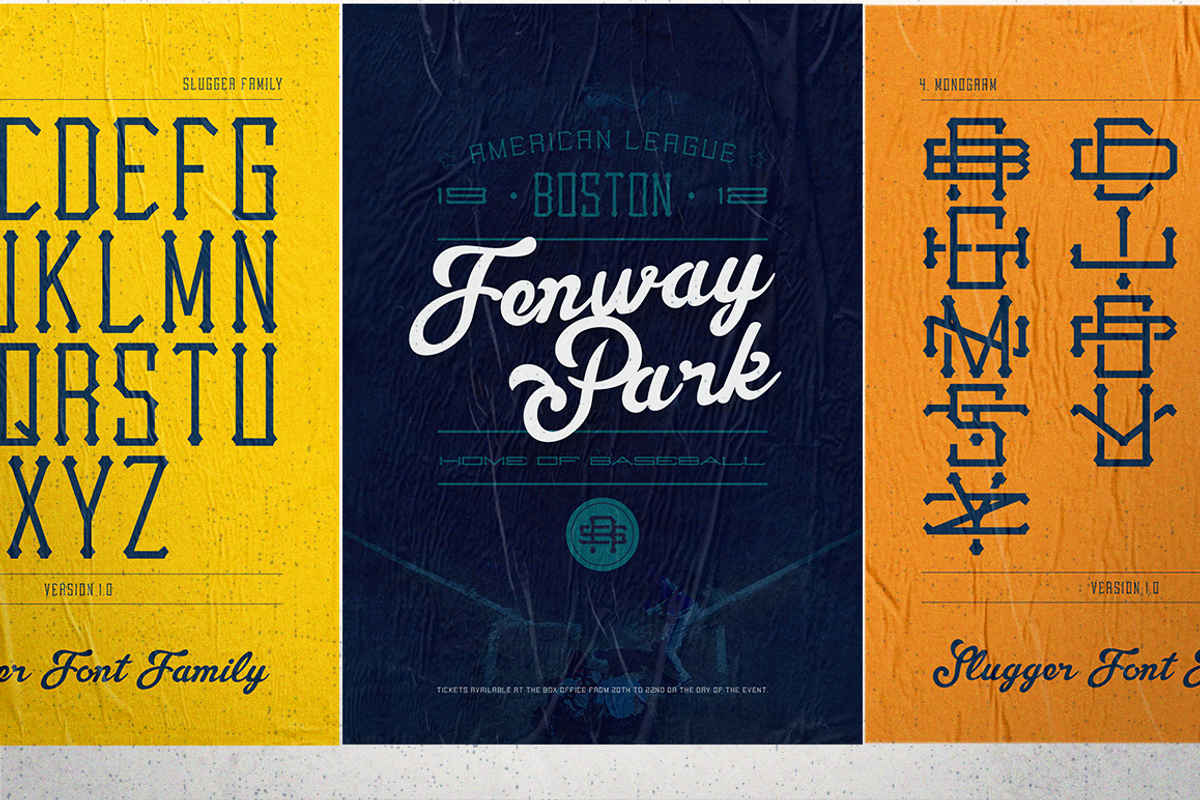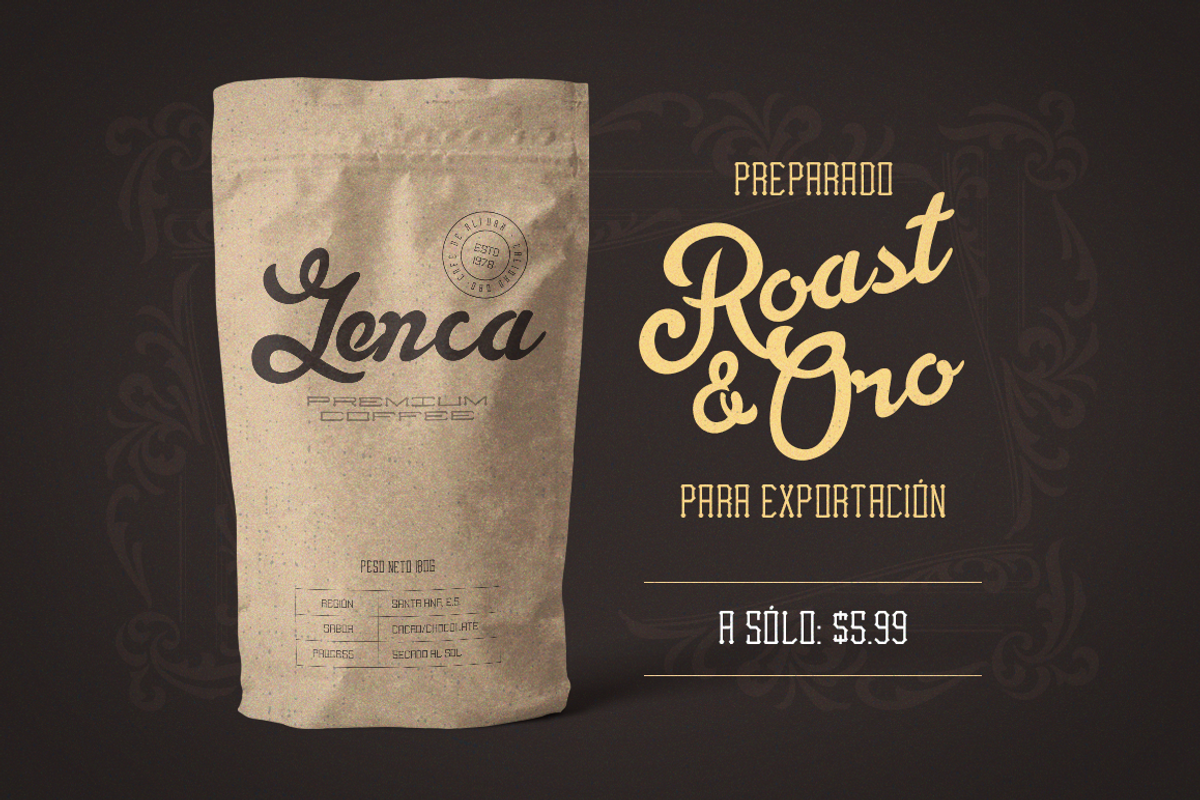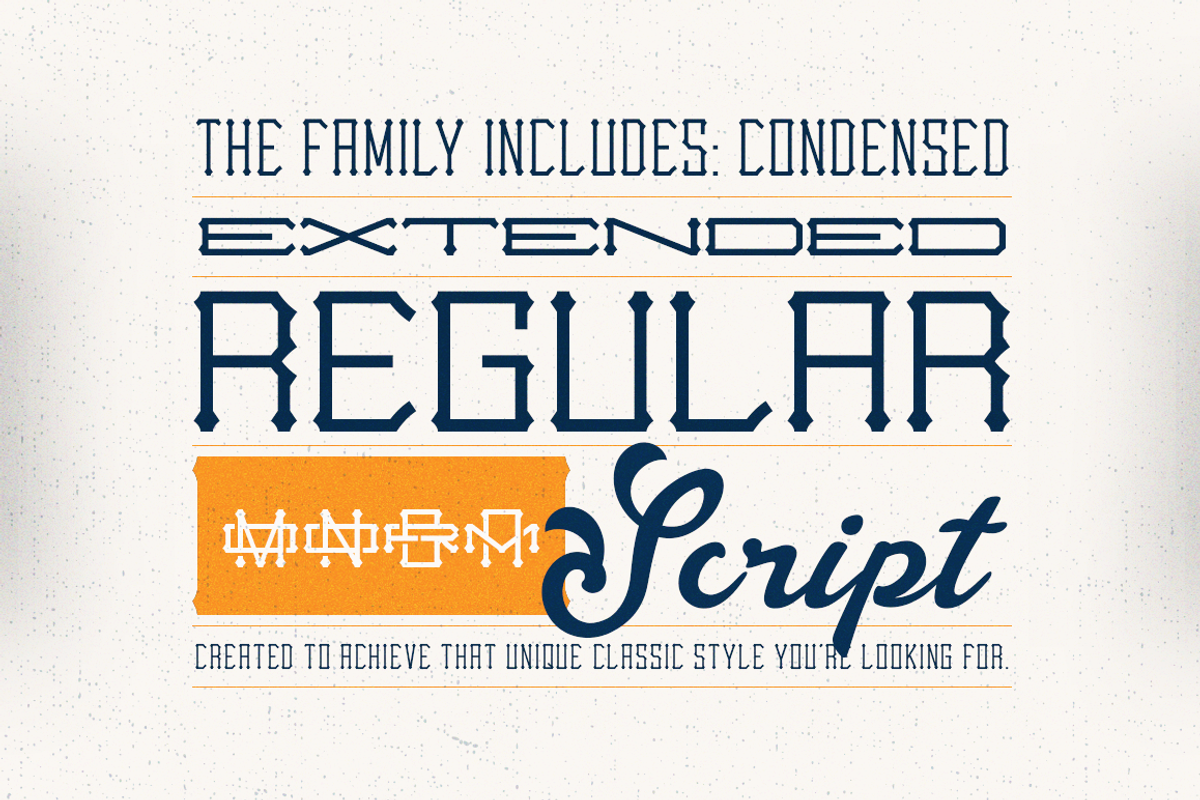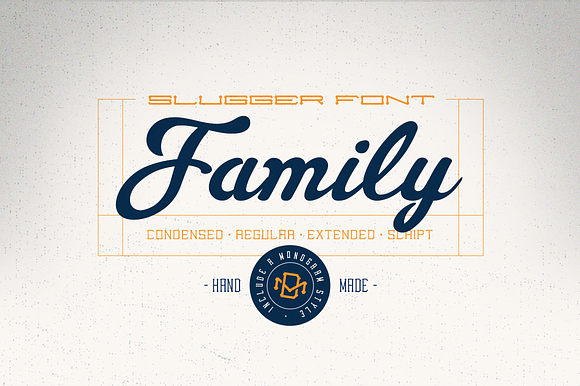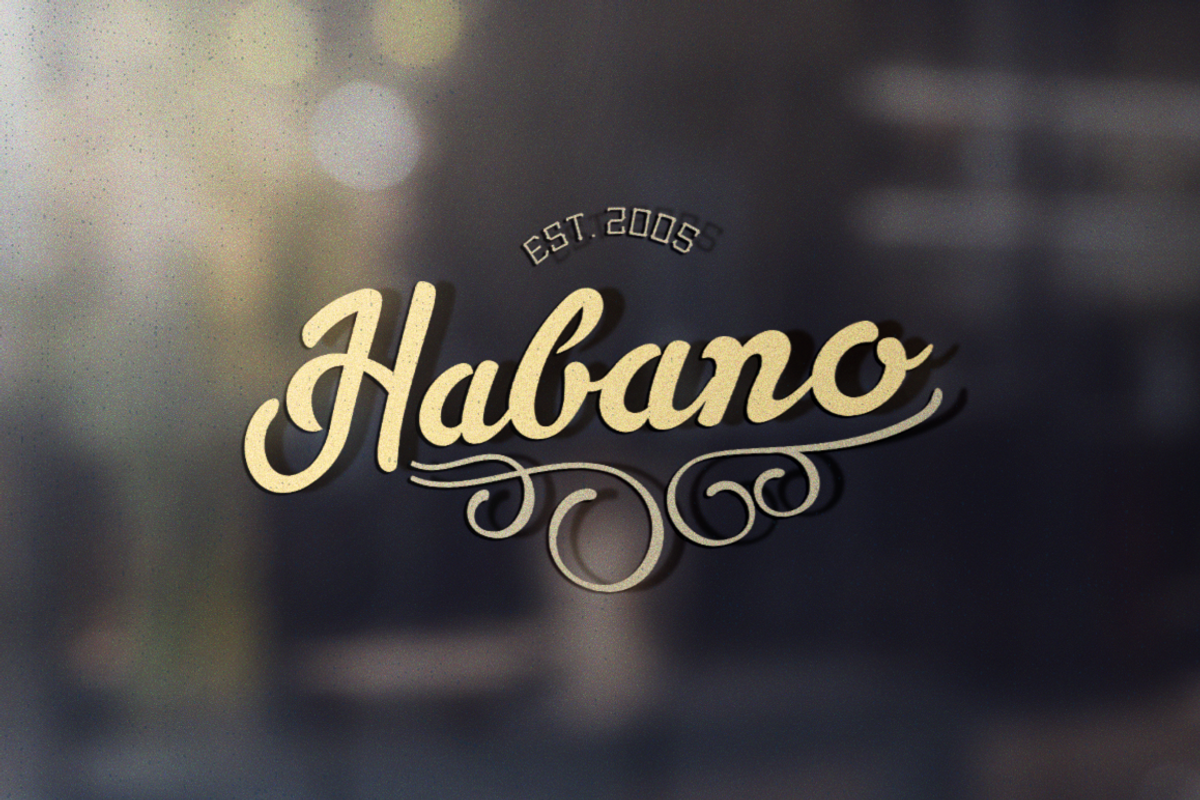
Slugger - Vintage Family Font
Slugger is a 5 font family, design as part of a brand image project for a local sports bar that needed a vintage yet clean and simple look, the result: condensed, regular, extended, script and a monogram style to complement and help bring the look and feel of simpler, better, innocent times.
- Slugger Regular
- Slugger Condensed
- Slugger Extended
- Slugger Monogram
- Slugger Script